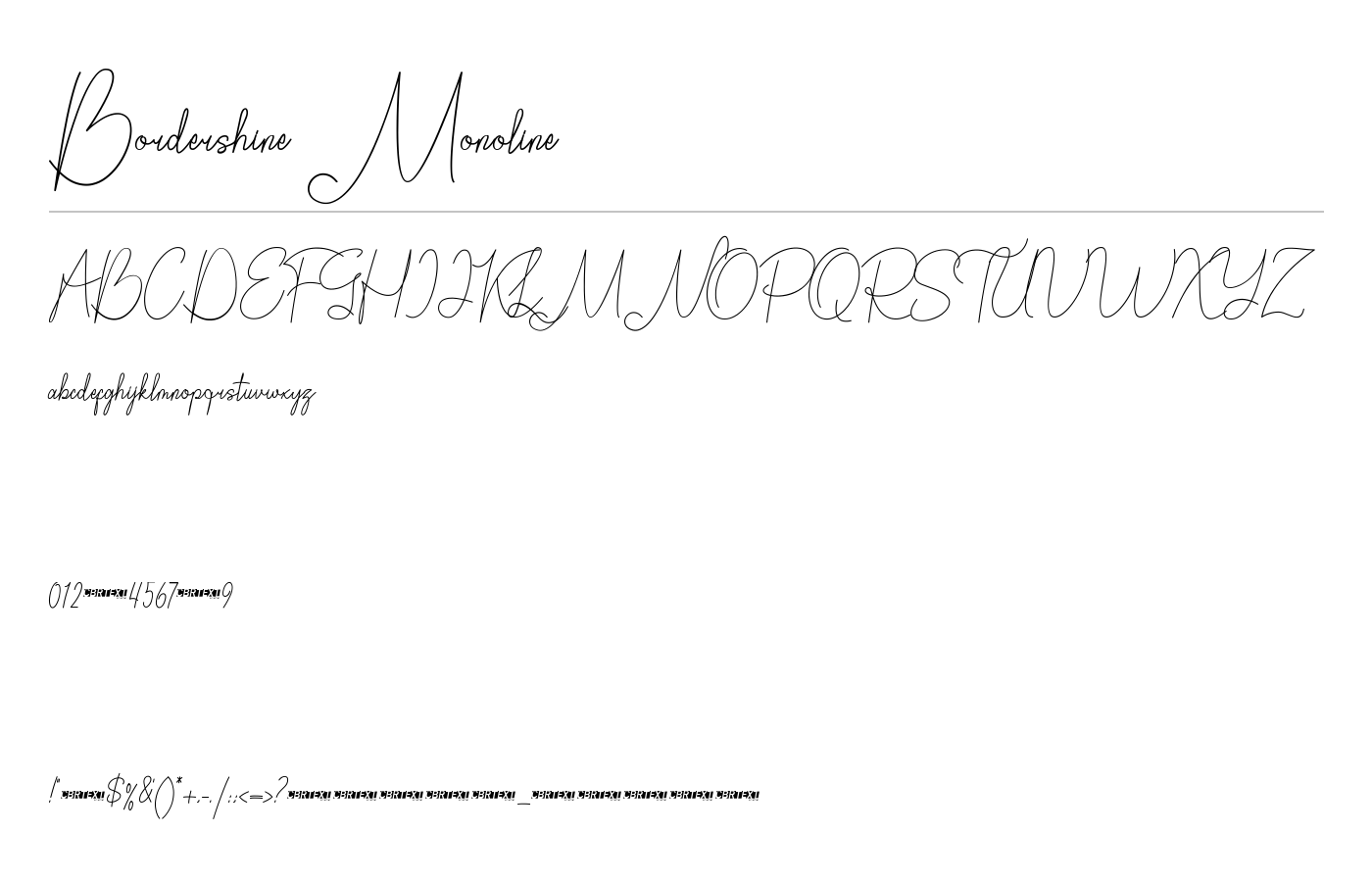
Bordershine Monoline is a delicate, elegant script font characterized by its ultra-thin, continuous monoline strokes and graceful, flowing letterforms. It conveys a sophisticated and stylish feel, making it ideal for upscale branding, wedding invitations, and editorial headlines where a refined, handwritten touch is desired. Its airy and light design creates a sense of luxury and approachability, perfect for projects aiming to combine modern elegance with a personal, artistic flair.
Bordershine Monoline Font
About Bordershine Monoline Font
| Font family | Bordershine Monoline Font |
| Designer | CBRTEXT Studio |